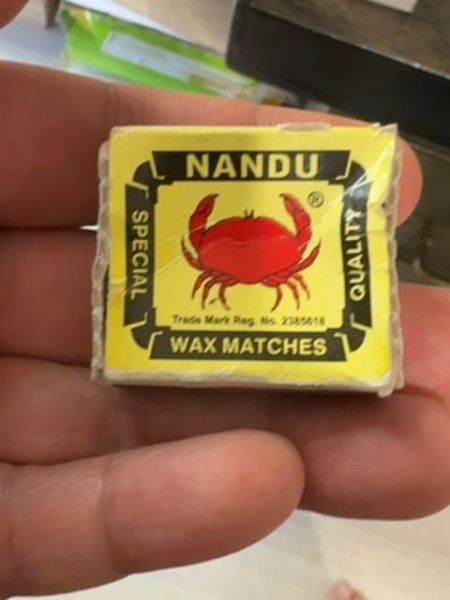
Nandu Wax Matches
These are wax matches used for lighting candles, stoves, or starting fires.
Country of Origin
India
Typography
The typography used on the packaging is bold and sans-serif, designed for high visibility and readability. The brand name 'NANDU' is set in a capitalized format, standing out against the yellow background. The consistent use of uppercase letters throughout the packaging conveys a sense of robustness and quality assurance.
Packaging
The packaging prominently features a red crab illustration at the center, symbolizing the brand. The background is a bright yellow, attracting attention with 'Special Quality' written on the sides. The overall look is bold and straightforward, emphasizing reliability.
Facts
- The product features a distinctive crab logo.
- It is marketed as 'Special Quality' matches.
- The packaging highlights its registered trademark.